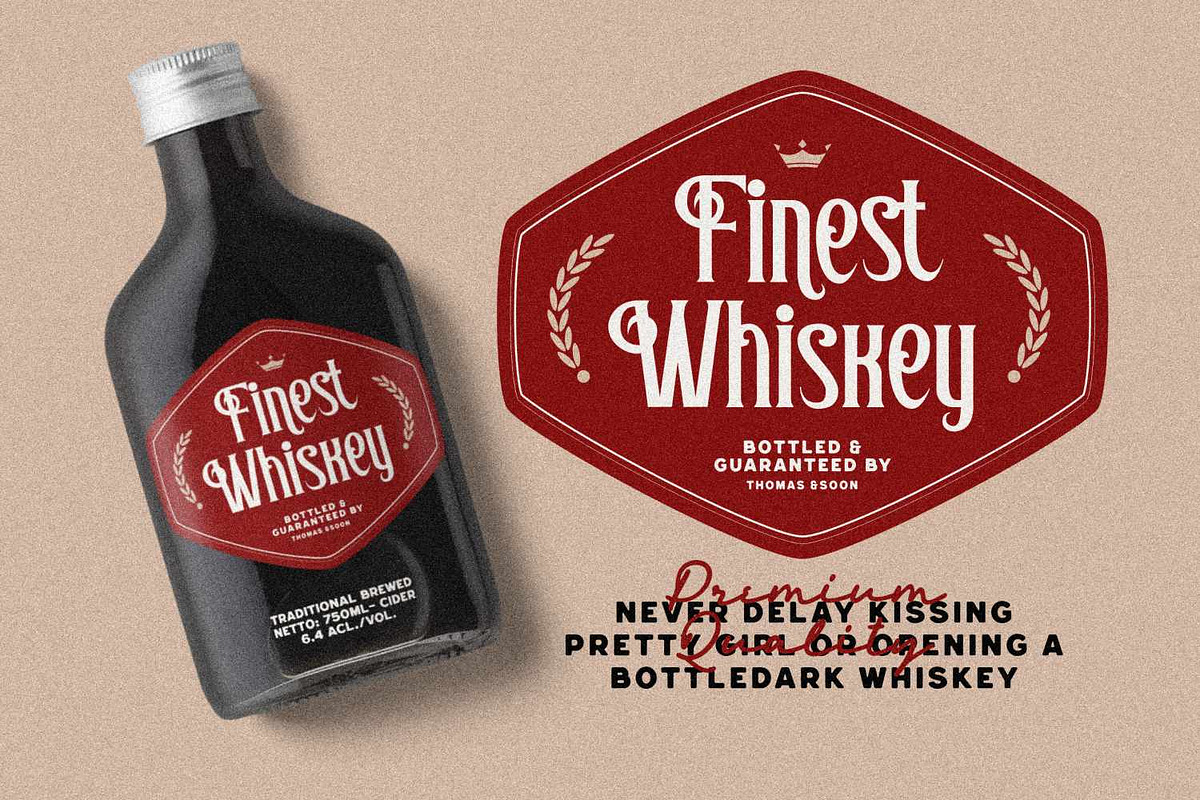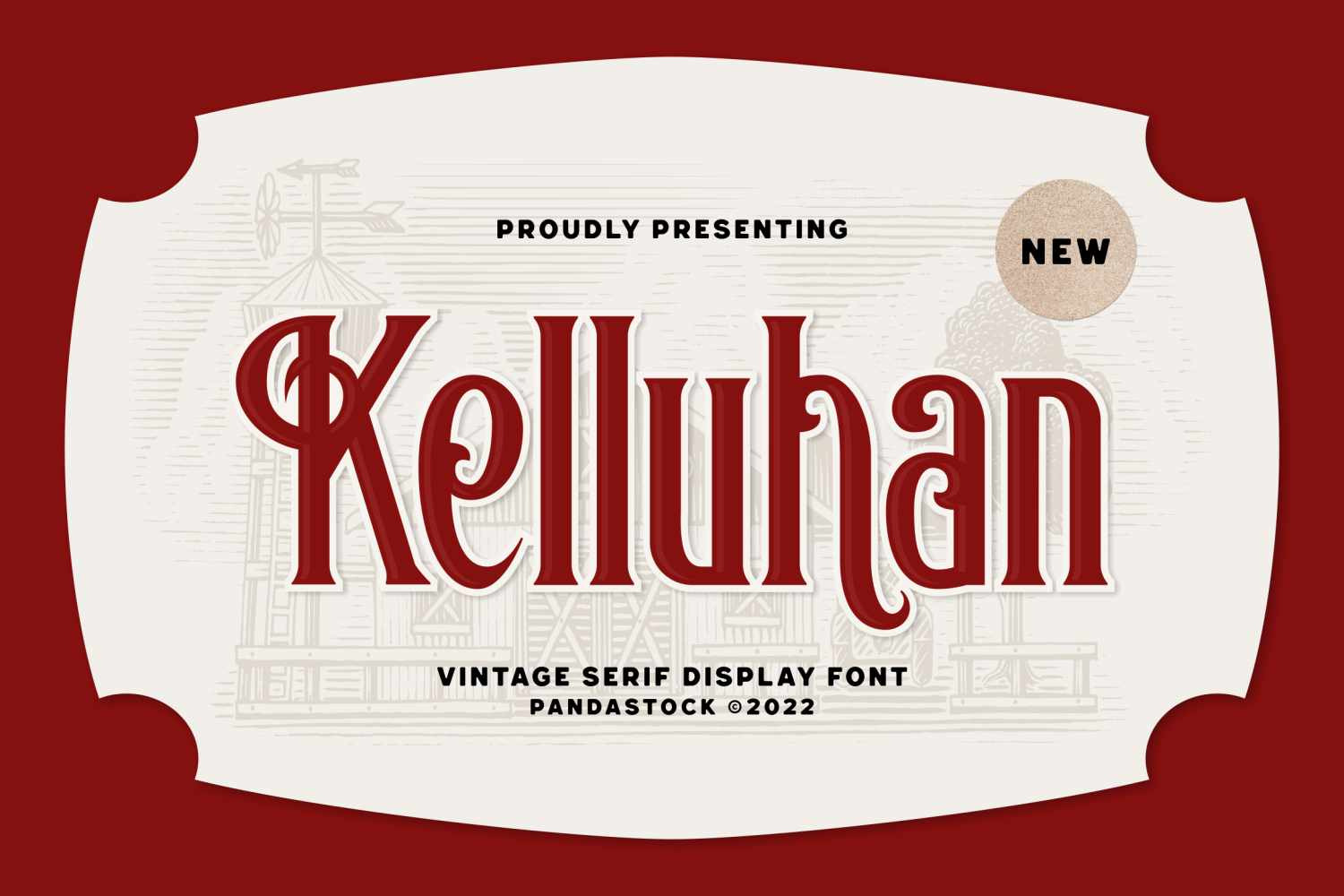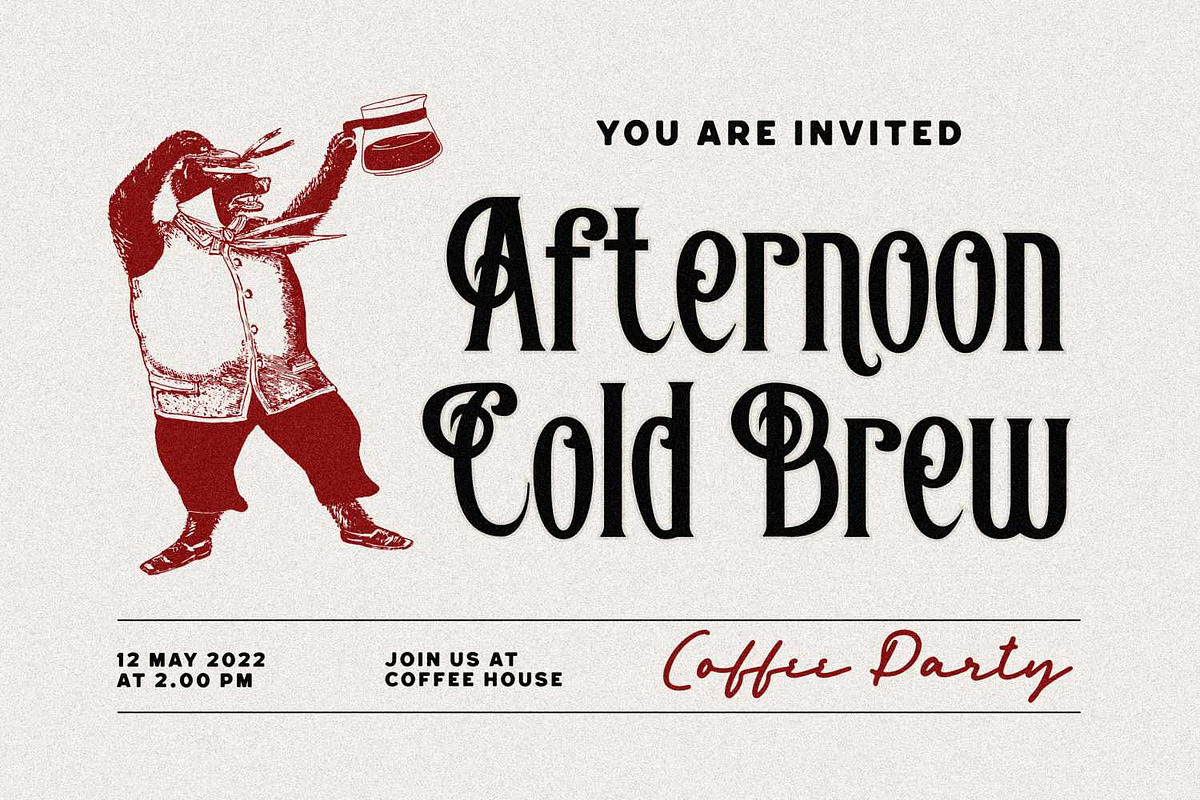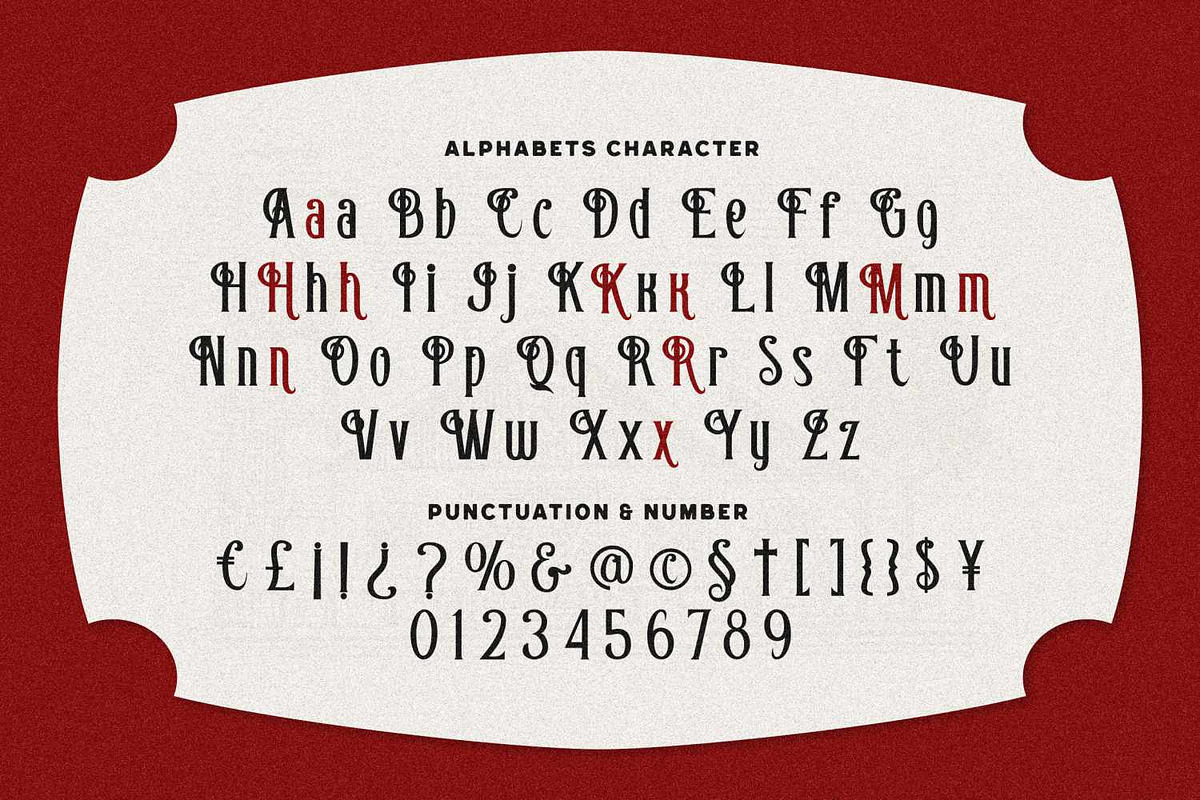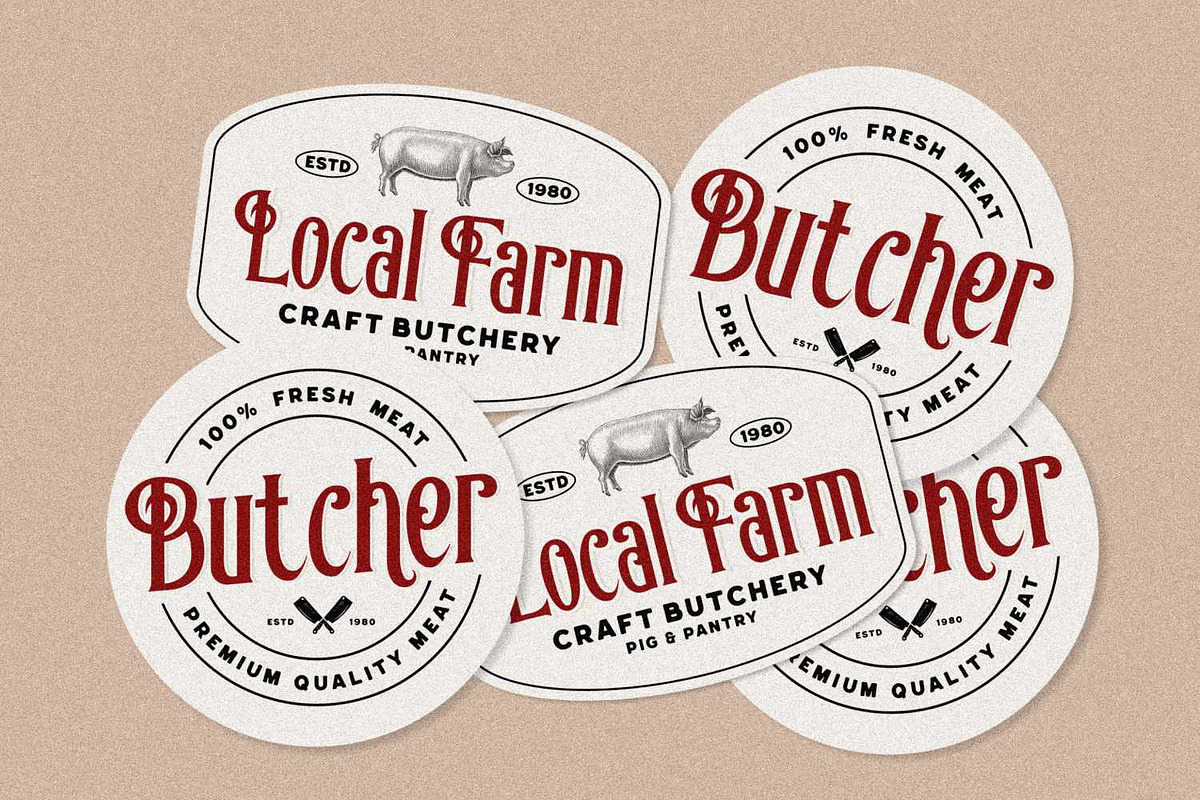
Kelluhan Vintage Serif Typeface
Kelluhan is a vintage serif typeface designed with rich ornamental features that are characteristic of victorian era display typography, often seen on old posters, certificates, and theater signage. This font features tall, elegant letterforms with intricate swashes and curved serifs, giving it a sophisticated and spectacular appearance.
It is well suited for display purposes such as branding, product logos, book cover, certificates, premium packaging, and signage.
- Uppercase and Lowecase Characters.
- Numerals and Punctuations.
- Alternates and Ligatures.
- Multilingual Support.